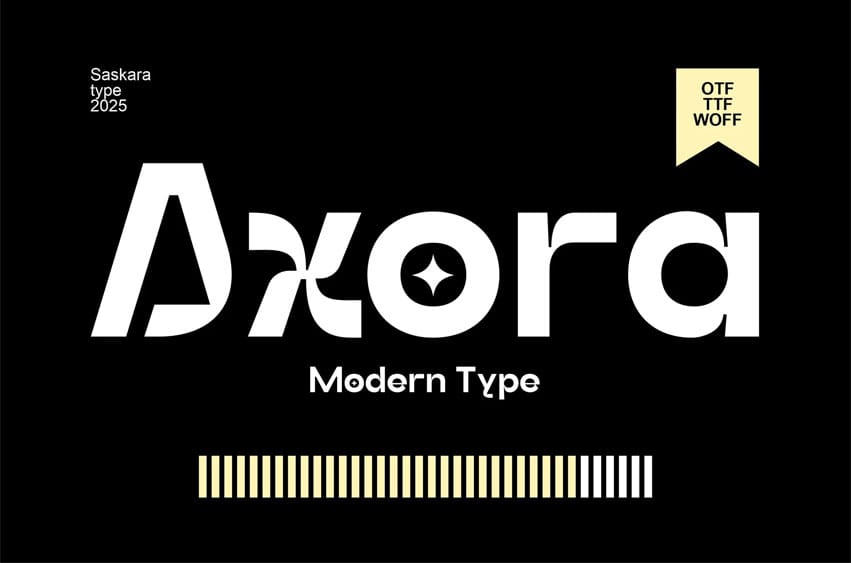
Axora Font is a modern sans-serif typeface with a geometric foundation and clean, minimal structure. Built for versatility, Axora delivers clarity, precision, and a futuristic feel that works across digital and print platforms. With its balanced proportions and sharp terminals, this typeface is ideal for brands that want to communicate confidence and forward-thinking design.
Suitable For:
- Branding & logo design
- UI/UX and web interfaces
- Editorial design (magazines, brochures)
- Product packaging
- Tech/startup presentations
- Mobile apps
- Posters & motion graphics